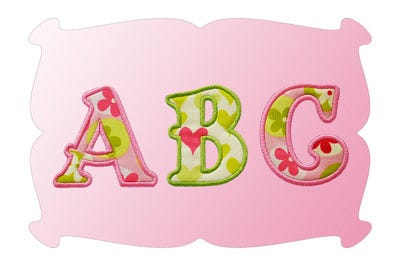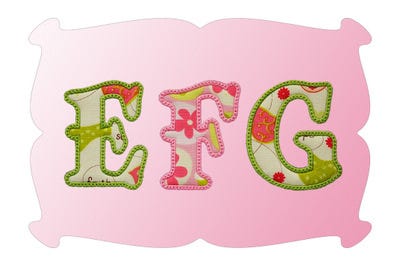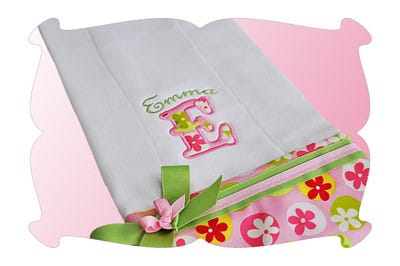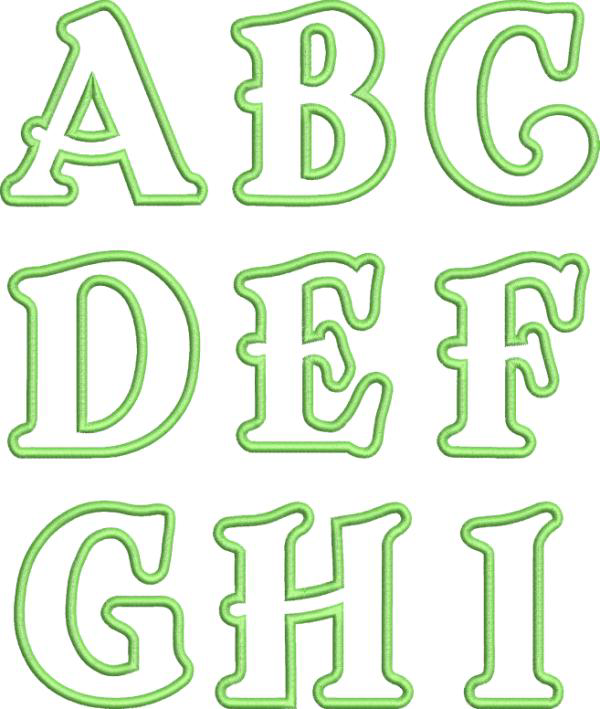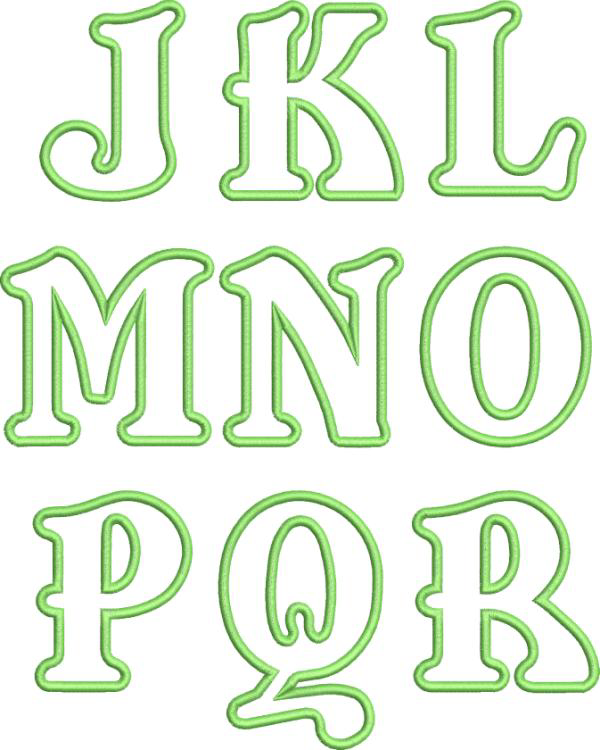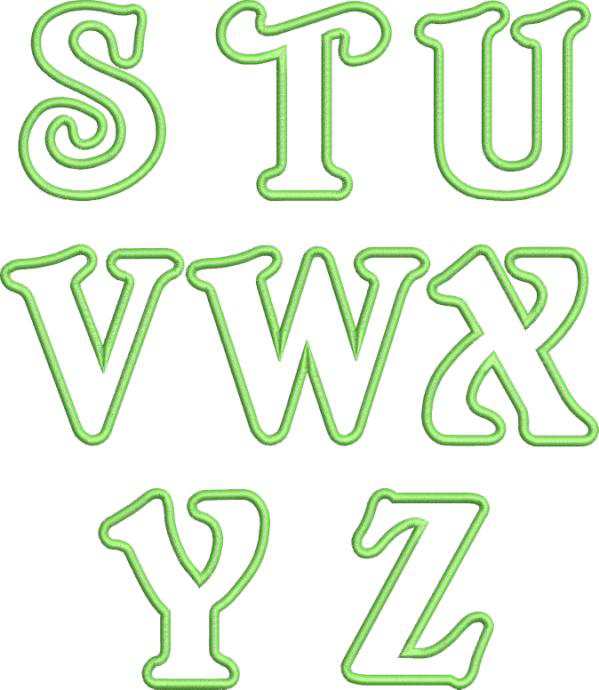
Emma Applique Font
A beautifully sweet font sure to become one of your favorites.
Shown in traditional satin finishing stitches above.
And it also comes in satin stitches with a decorative triple stitch.
Perfect for Oneises, T's and burp cloths too.
Also included are 2 types of finishing stitches: traditional satin stitch and satin triple stitch.
Capital letters A thru Z.